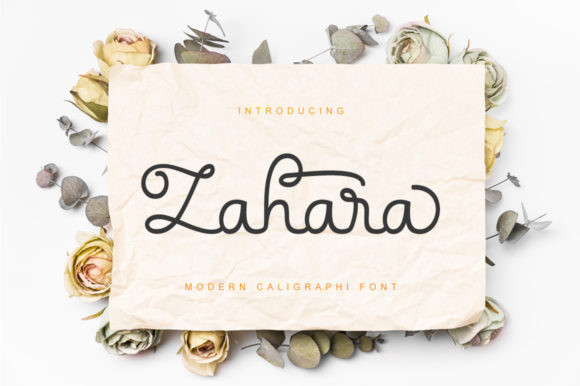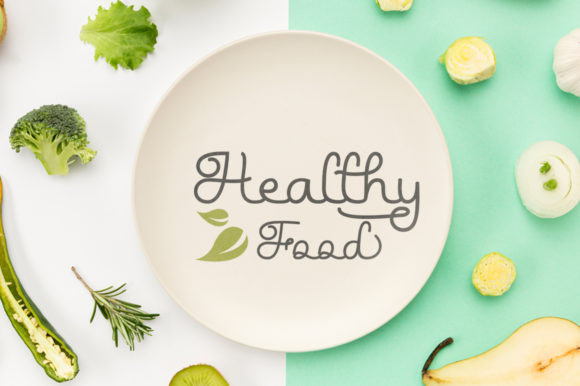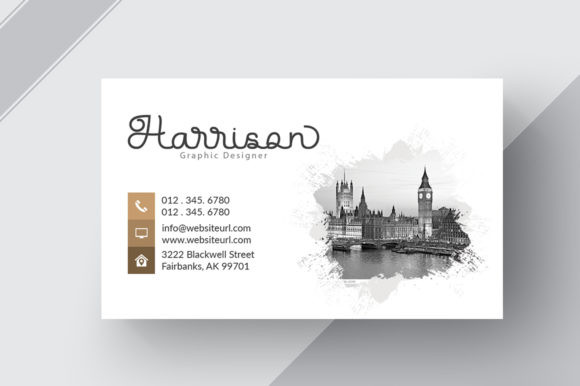
Zahara Font
Zahara Script is a modern and elegant handwritten font. Fall in love with its incredibly versatile style and use it to create spectacular designs!